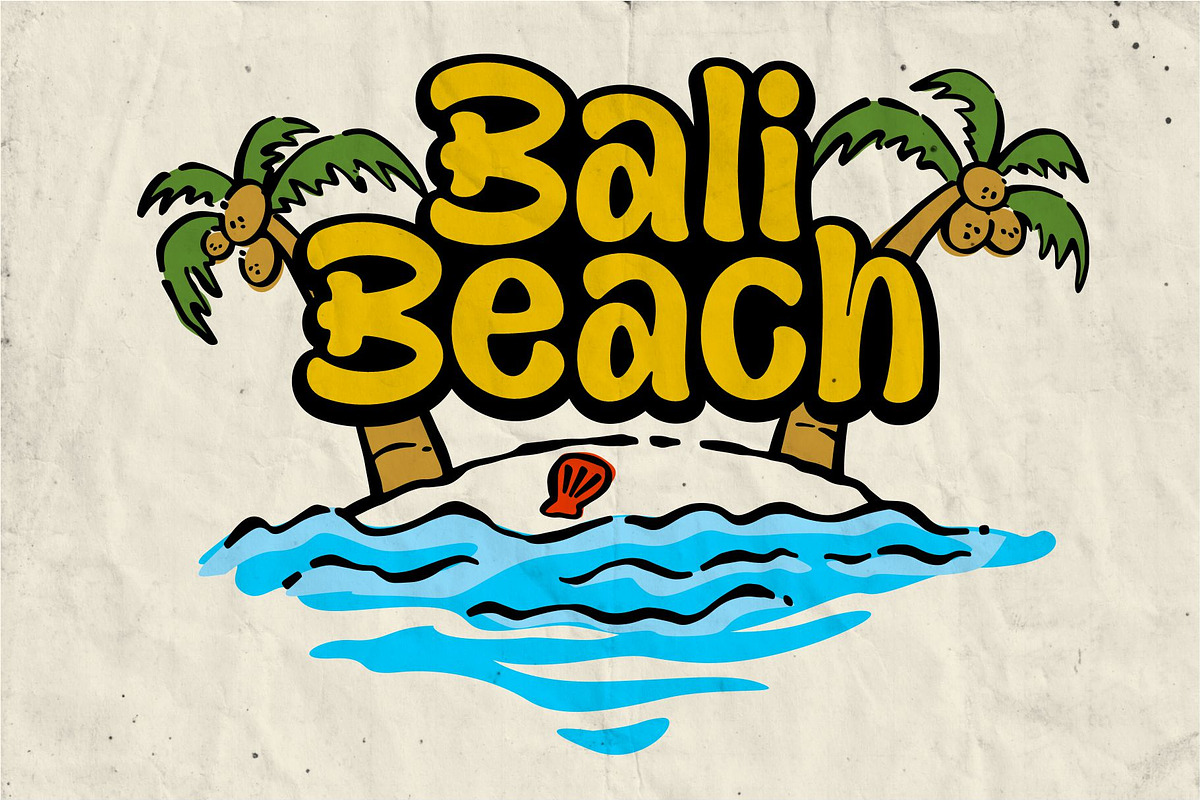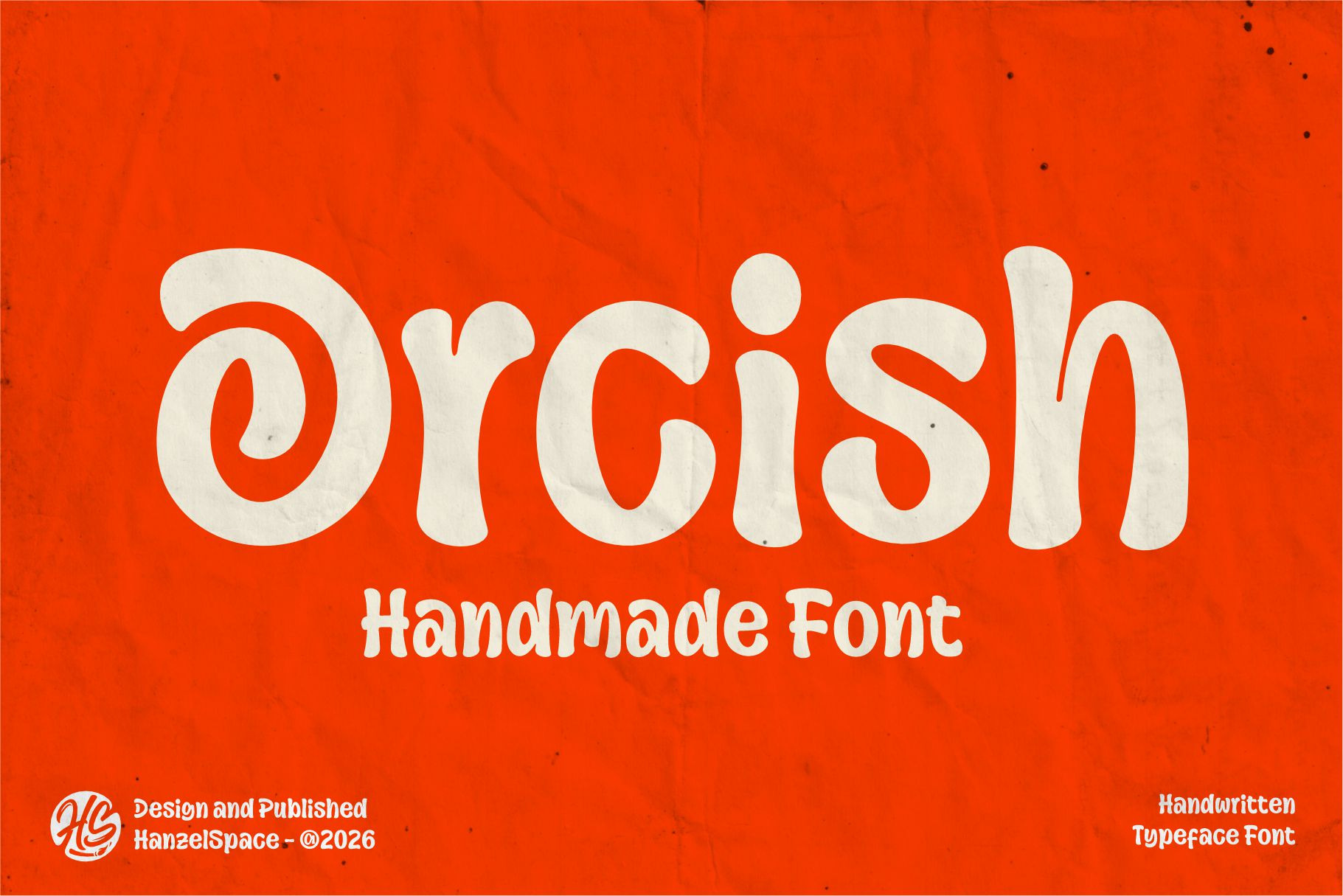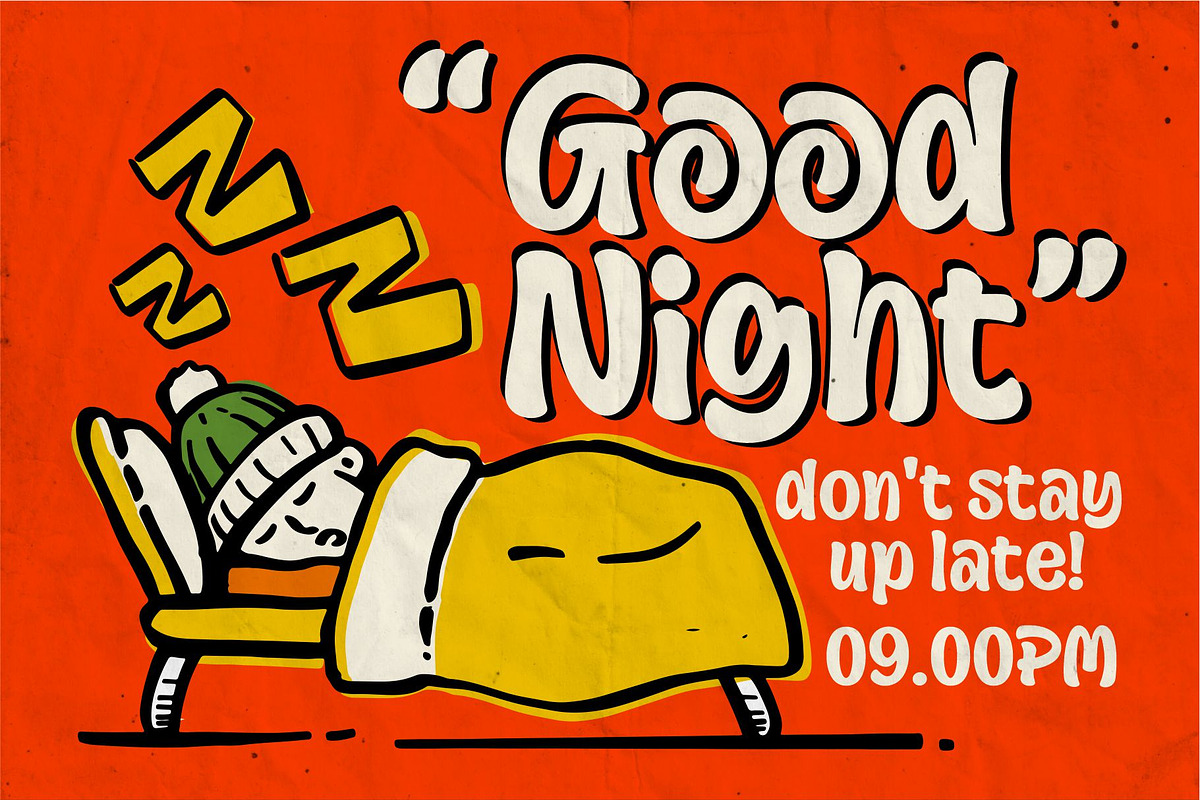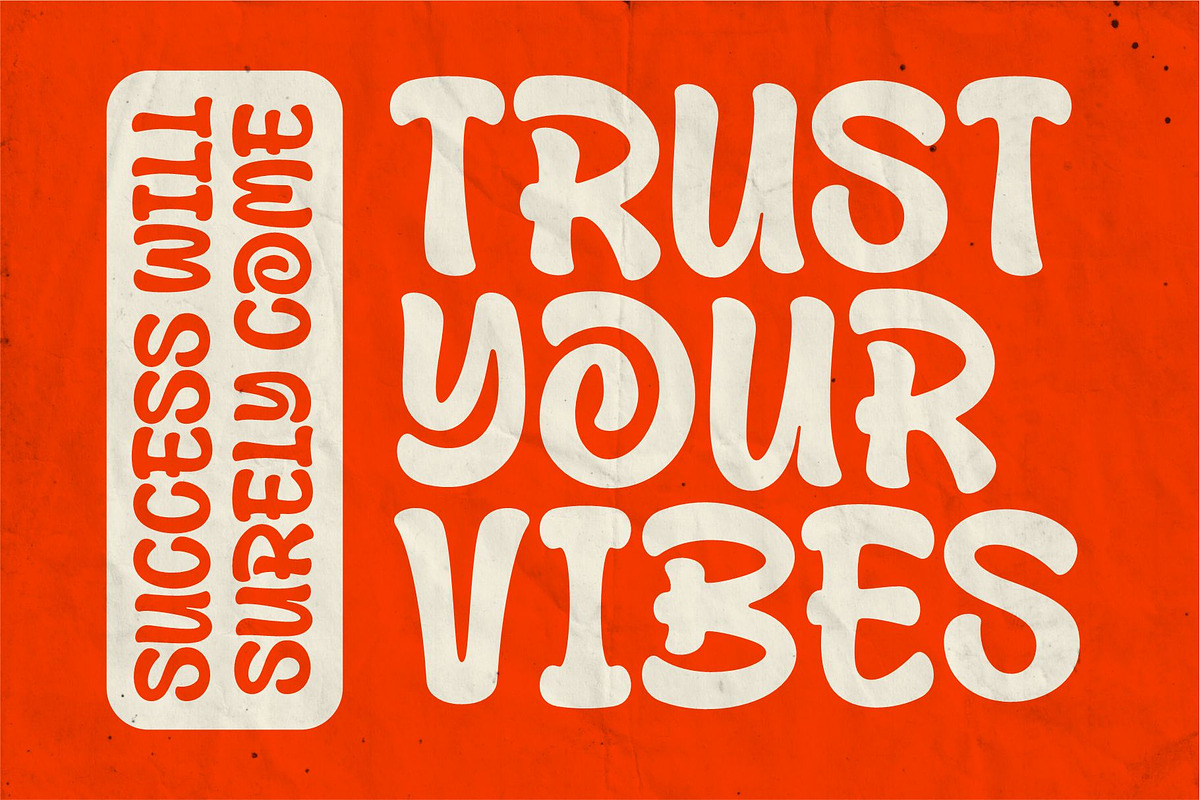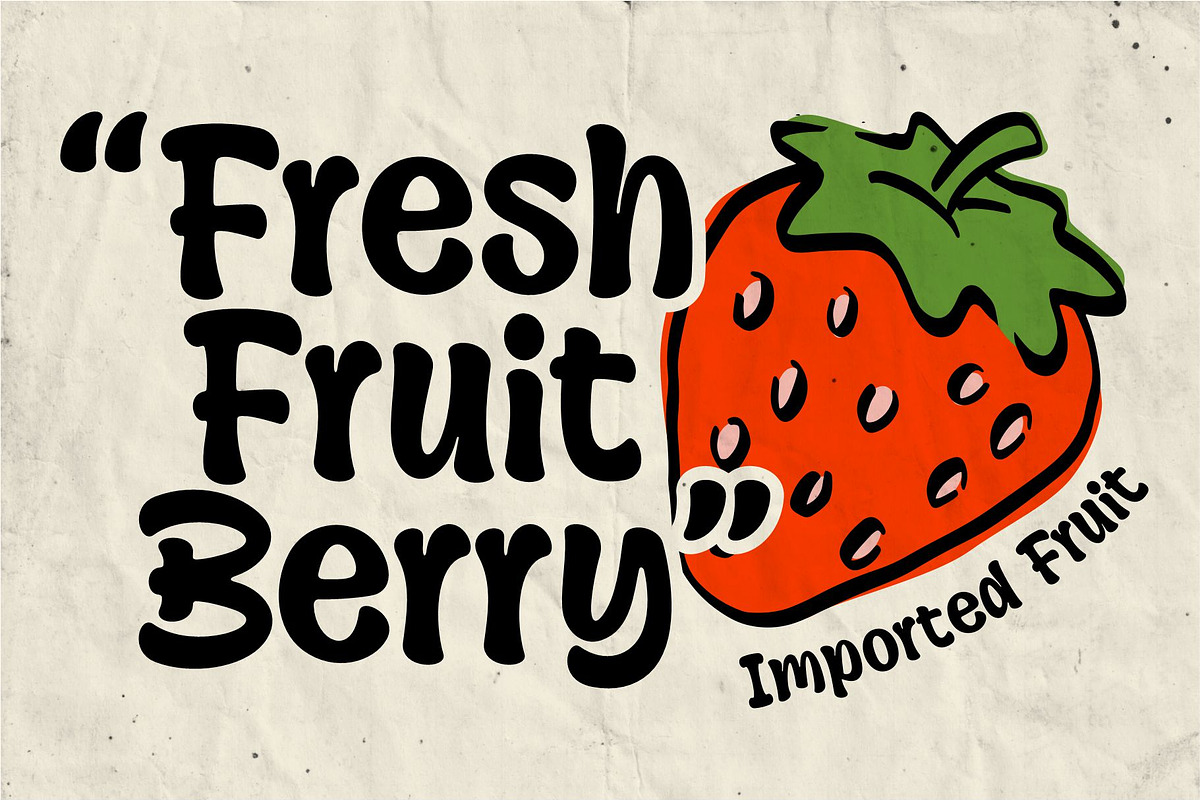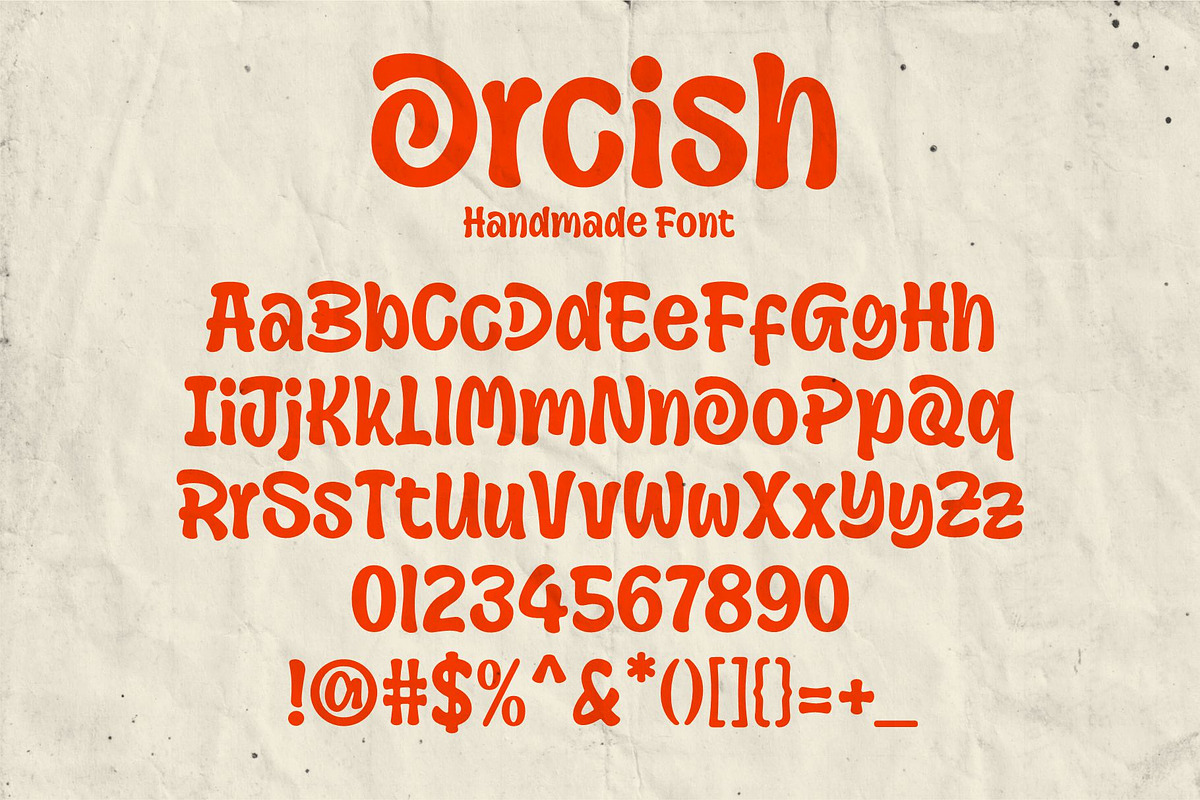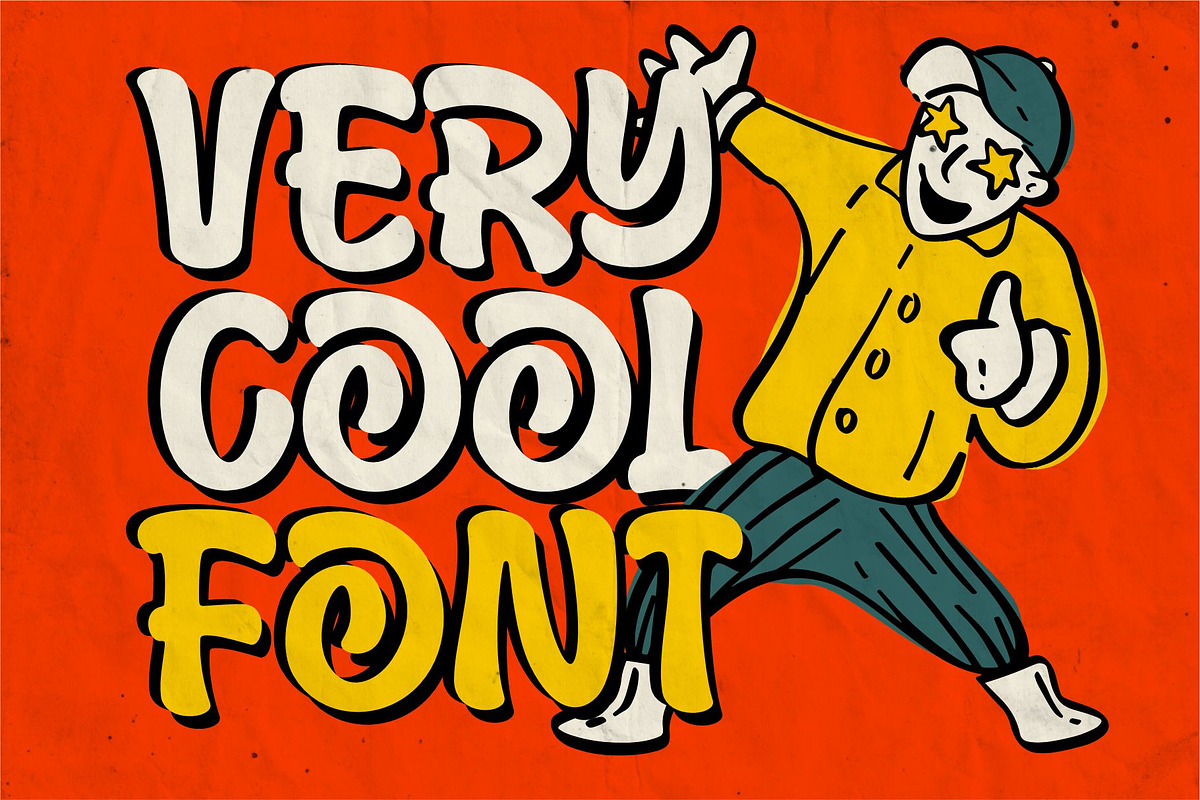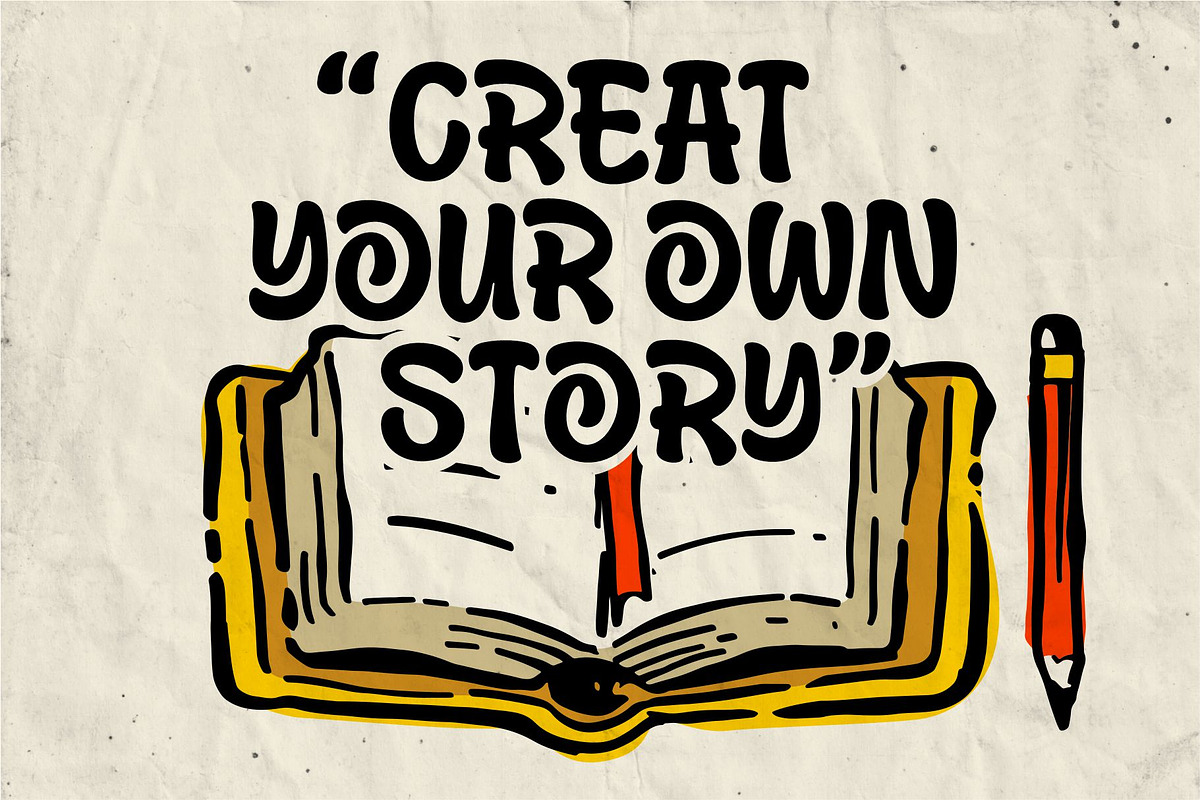
Orcish - Handmade Font
This font is made with natural characters with smooth curves so that it has a unique character in each letter and also displays a pleasant impression.
Orcish brings a sense of warmth and charm to any visual project. Perfect for packaging, branding, posters, or social media, this typeface captures the essence of playfulness with its unique curves and interesting shapes. It's a typeface that instantly makes any design more approachable and expressive.